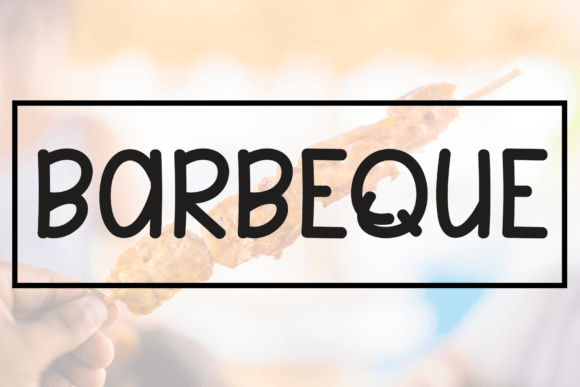
Step into the world of Barbeque Font, where your creative visions will dance and sizzle with pure elegance. This tantalizing blend of script and handwritten styles has been carefully crafted to infuse your projects with a smoky charm that's impossible to resist. Barbeque Font is the ultimate culinary companion, adding a flavorful twist to menus, food packaging, and restaurant branding. Its delectable curves are perfect for handwritten invitations, greeting cards, and personal touches that leave a lasting impression.
With Barbeque Font, your designs will become a feast for the eyes. Its charismatic personality shines through in every letter, captivating your audience with its casual yet refined appeal. Whether you're creating posters, social media graphics, or stunning logo designs, Barbeque Font is the versatile ingredient that brings your ideas to life. It's like having a secret weapon in your design arsenal, ready to transform your projects into mouthwatering masterpieces.
With Barbeque Font at your fingertips, you'll experience a creative liberation like never before. Let your imagination run wild as you explore the endless possibilities. Your designs will ignite with passion, captivating your audience with their smoky elegance. Whether you're a seasoned designer or just starting your creative journey, Barbeque Font is the perfect companion for adding a touch of sizzle to your everyday projects. Unleash your inner artist and let the Barbeque Font ignite your design endeavors today!